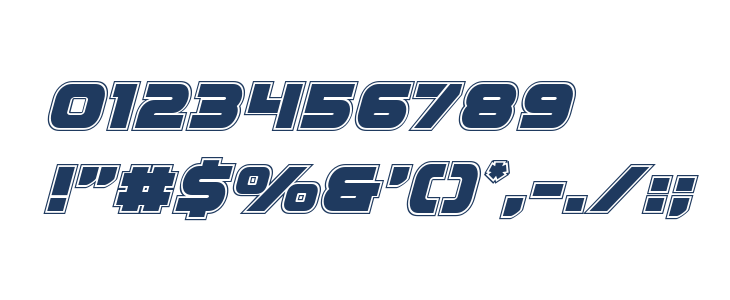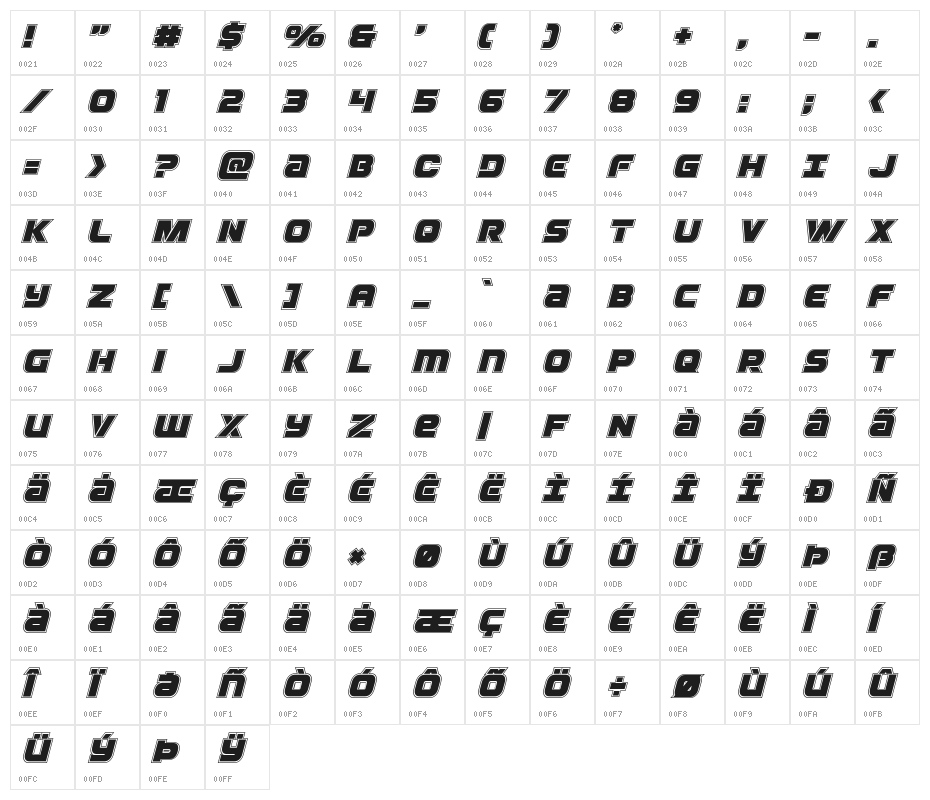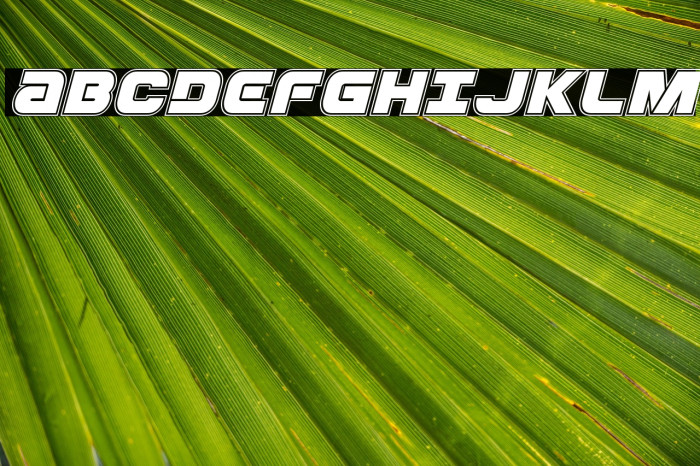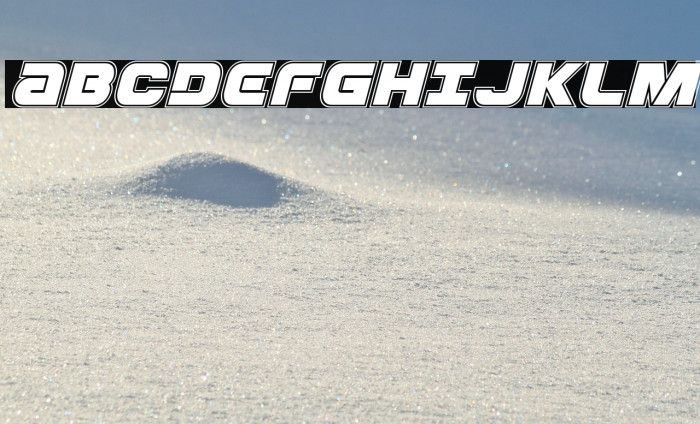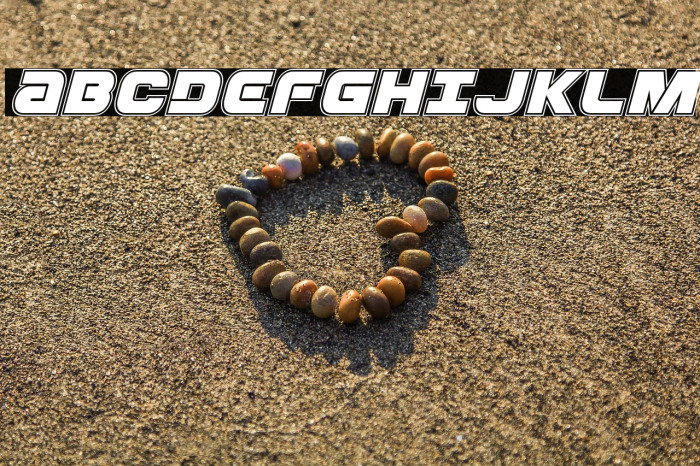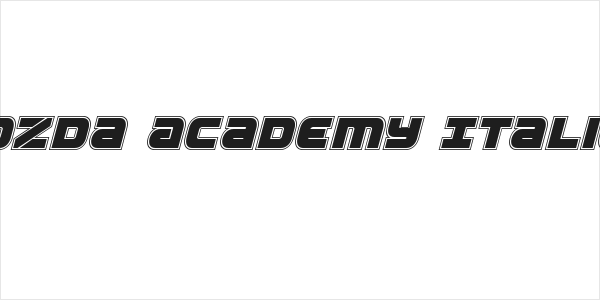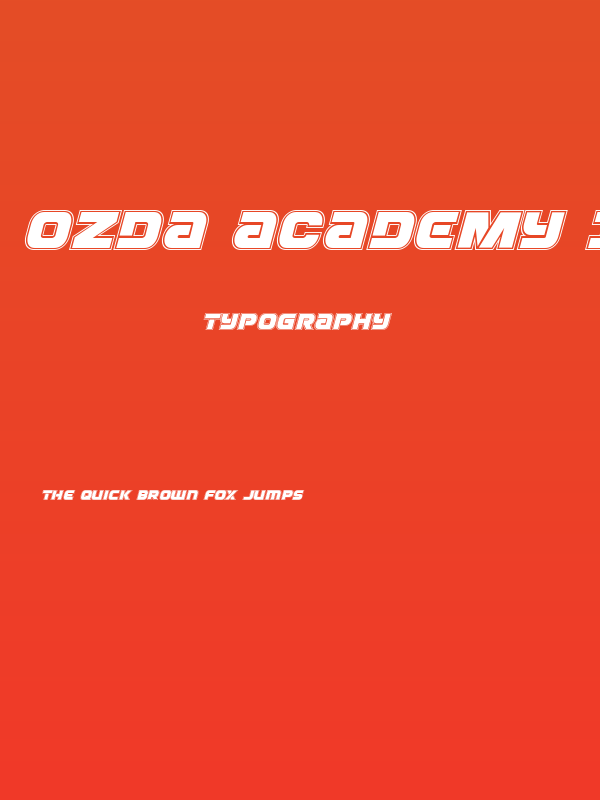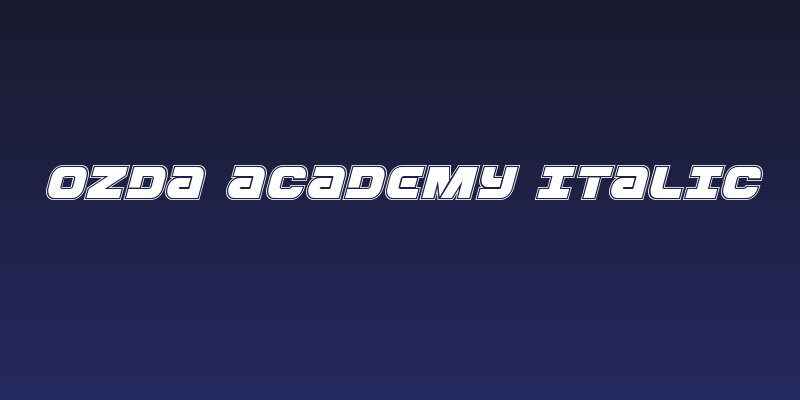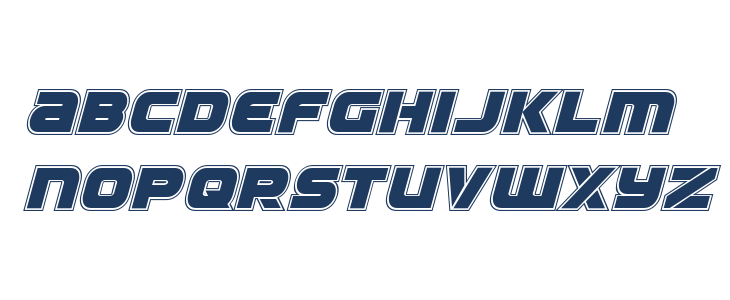
Ozda Academy Italic Font
Ozda Academy Italic Description
This font features a bold, italicized style with a modern and dynamic appearance. The characters are outlined with a thick border, giving them a three-dimensional effect. The uppercase and lowercase letters maintain a consistent design, with sharp angles and a slightly condensed form. The numbers and special characters follow the same stylistic approach, ensuring uniformity across all elements. The font's strong presence makes it suitable for attention-grabbing headlines and impactful designs.